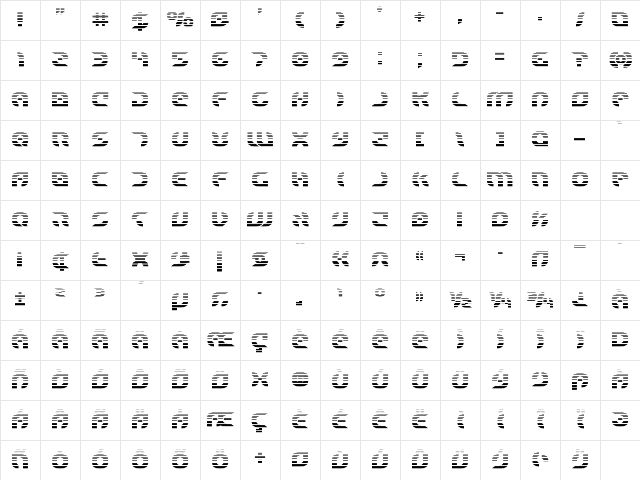
Starfighter Bold Gradient Bold Free Font
Starfighter Bold Gradient Bold
Design Context for Starfighter Bold Gradient
Starfighter Bold Gradient is a composed and adaptable typeface that performs quietly and consistently across a wide range of design contexts. Its bold stroke weight gives it real presence on the page.